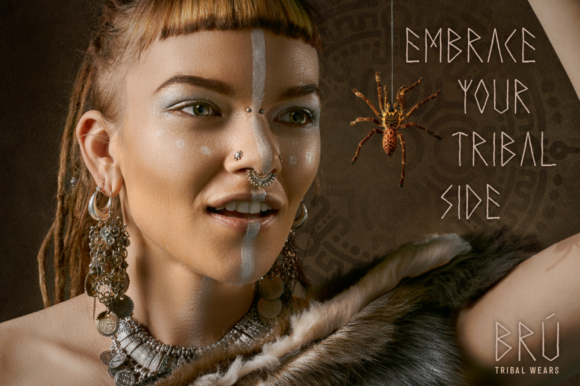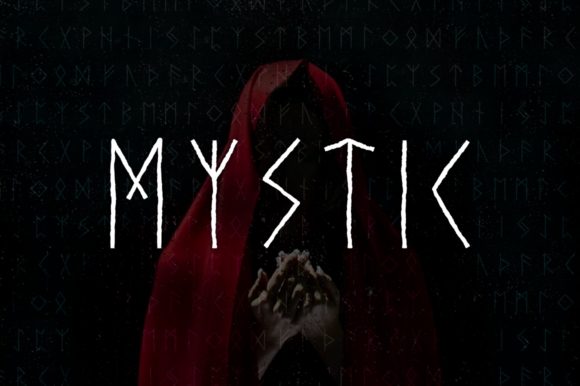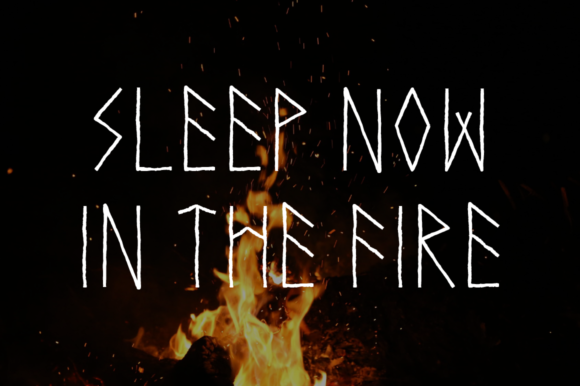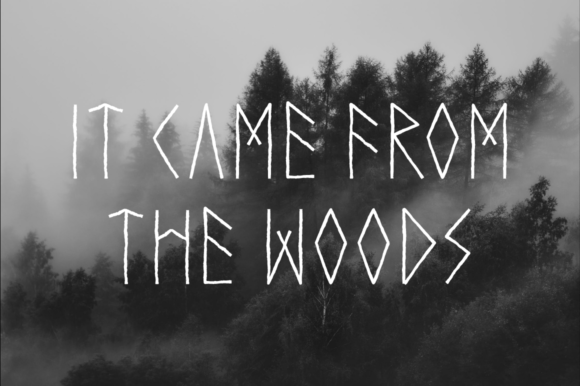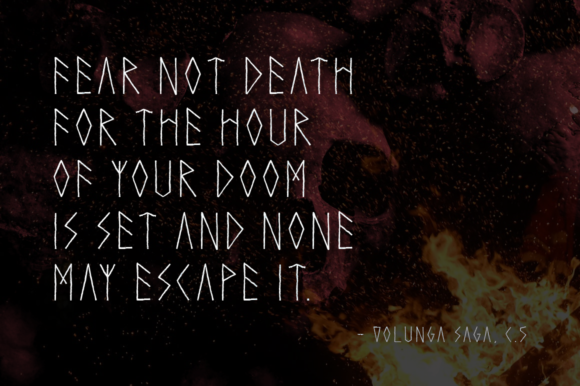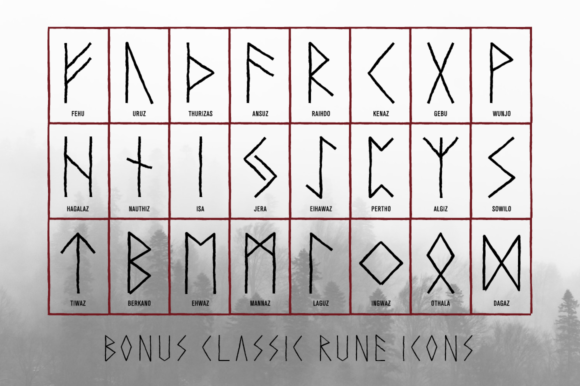
Discover the Unique Charm of Harga Font: Elevate Your Designs with its Natural Style
In the vast world of typography, finding the perfect font that captures the essence of your design can be a daunting task. However, if you’re looking for a simple yet unique display font that can effortlessly elevate your creative projects, look no further than Harga Font. With its natural and distinctive style, Harga Font is incredibly versatile and can seamlessly fit into a wide range of designs, making it a must-have for designers and crafters alike.
What Makes Harga Font Stand Out?
Harga Font boasts a unique charm that sets it apart from more traditional fonts. Its simplicity is its strength, offering a clean and uncluttered look that can add a touch of sophistication to any design. Whether you’re working on a branding project, a website, or a craft project, Harga Font’s natural style ensures that your work stands out without appearing overly complicated or distracting.
One of the key features of Harga Font is its versatility. It can be used in a variety of contexts, from headlines and titles to logos and packaging. This versatility makes it an invaluable asset for designers who need a reliable font that can adapt to different design requirements. Moreover, its unique style ensures that your designs have a personal touch, setting them apart from more generic and conventional typography.
The Benefits of Using Harga Font in Your Designs
There are several benefits to incorporating Harga Font into your design projects:
- Unique Aesthetic: Harga Font offers a fresh and distinctive look that can instantly elevate your designs. Its natural style adds warmth and character, making your work more engaging and memorable.
- Versatility: Whether you’re designing for digital platforms or print, Harga Font adapts seamlessly. It’s perfect for headings, titles, and any design element where you want to make a statement.
- Easy to Read: Despite its unique style, Harga Font remains highly legible, ensuring that your message is communicated clearly and effectively.
- Time-Saving: With Harga Font, you can achieve professional-looking results without spending hours searching for the perfect typography. It’s a time-saving solution that doesn’t compromise on quality.
How to Make the Most of Harga Font
To truly leverage the potential of Harga Font, consider the following tips:
- Pair it with Complementary Fonts: For body text, pair Harga Font with a more traditional, easy-to-read font. This contrast will create visual interest and ensure readability.
- Experiment with Sizes and Colors: Don’t be afraid to play around with different sizes and colors to find the perfect combination that suits your design.
- Use it for Headlines and Titles: Harga Font shines in headlines and titles, where its unique style can make a significant impact.
Harga Font is more than just a typeface; it’s a design statement. Its simple yet unique style, combined with its versatility and legibility, makes it an excellent choice for designers and crafters looking to add a personal touch to their projects. Whether you’re working on a professional design or a personal craft project, Harga Font has the potential to elevate your work and make it stand out. Discover the unique charm of Harga Font today and take your designs to the next level.